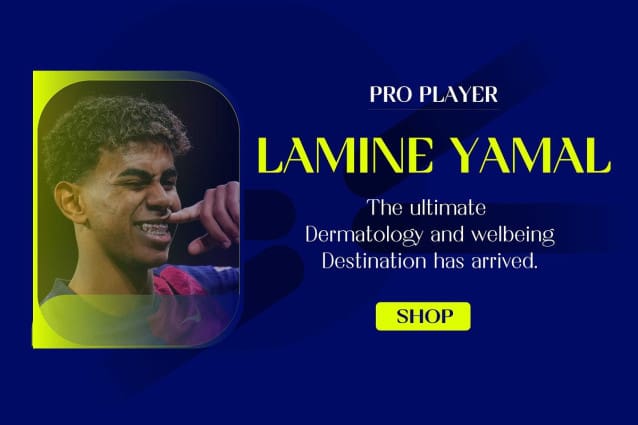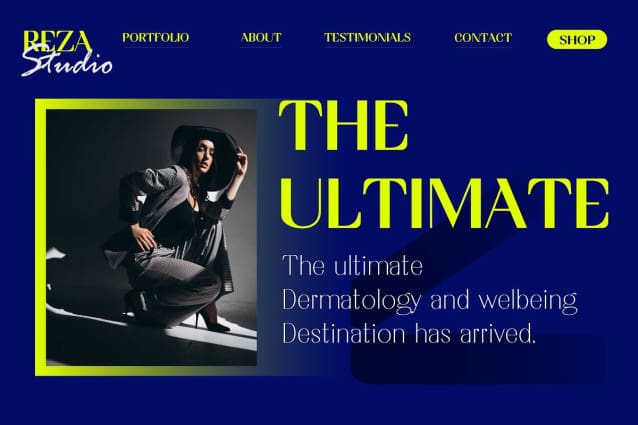
Agenia Font Family
Agenia Font Family : Elegant, Modern & Expressive. Get the unique and attractive Agenia font! Carefully designed to give an elegant and modern touch to your work.